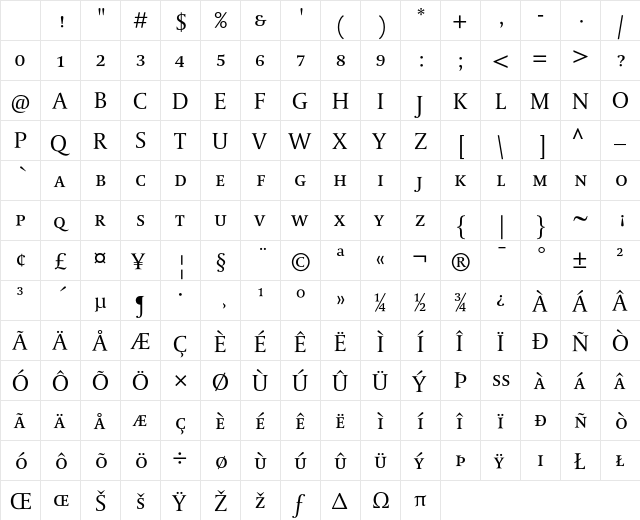
DTLParadoxTCaps Regular Free Font
DTLParadoxTCaps Regular
Design Context for DTLParadoxTCaps
DTLParadoxTCaps is a composed and adaptable typeface that performs quietly and consistently across a wide range of design contexts.